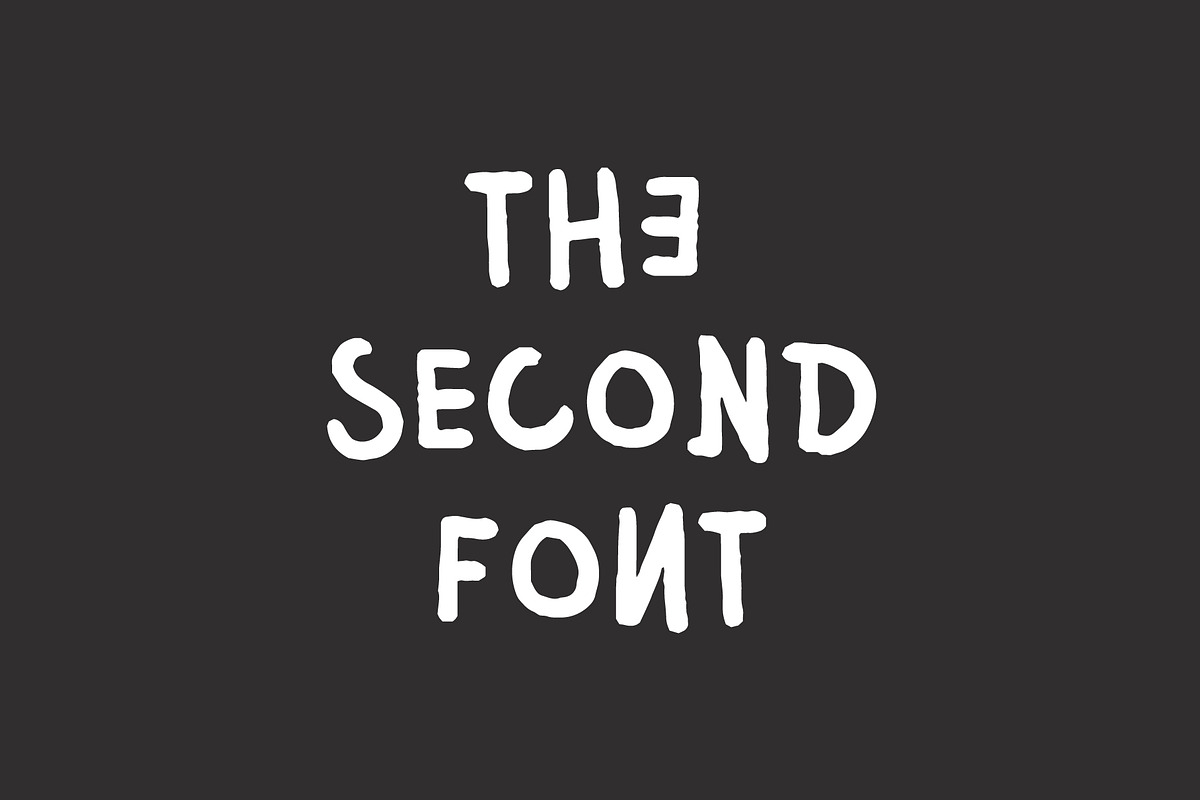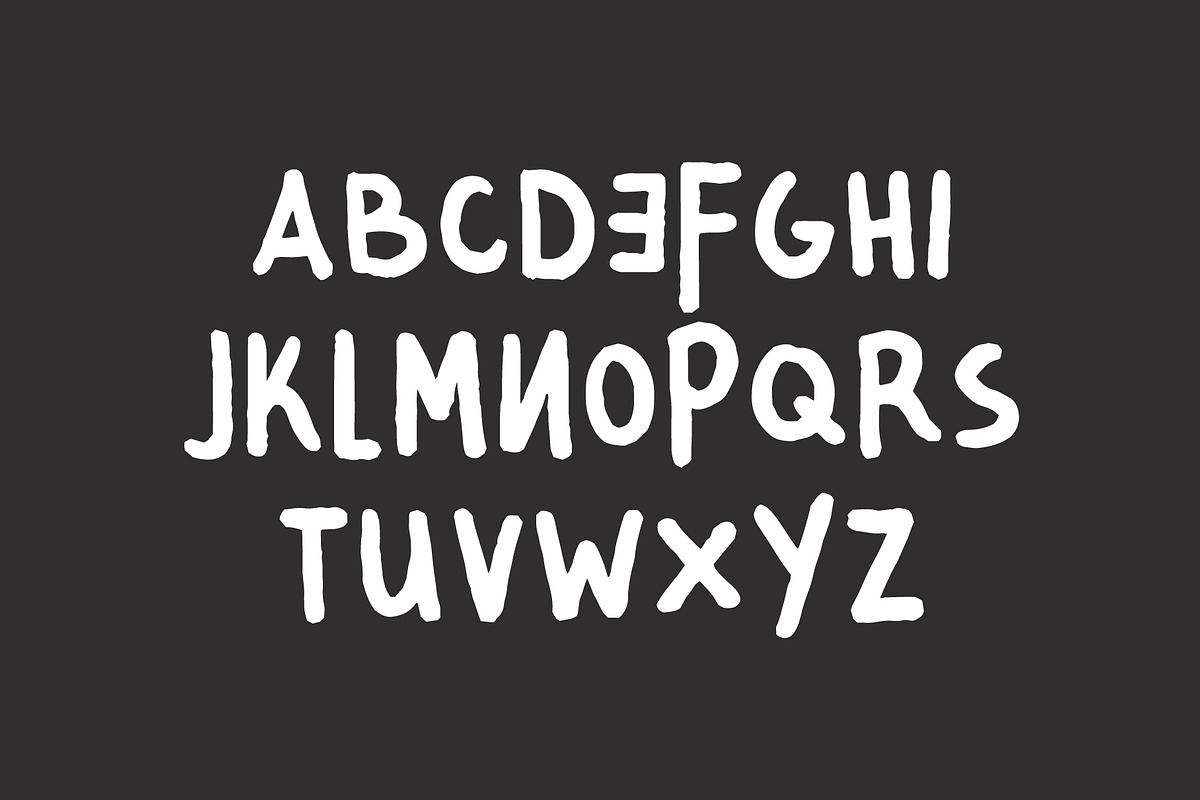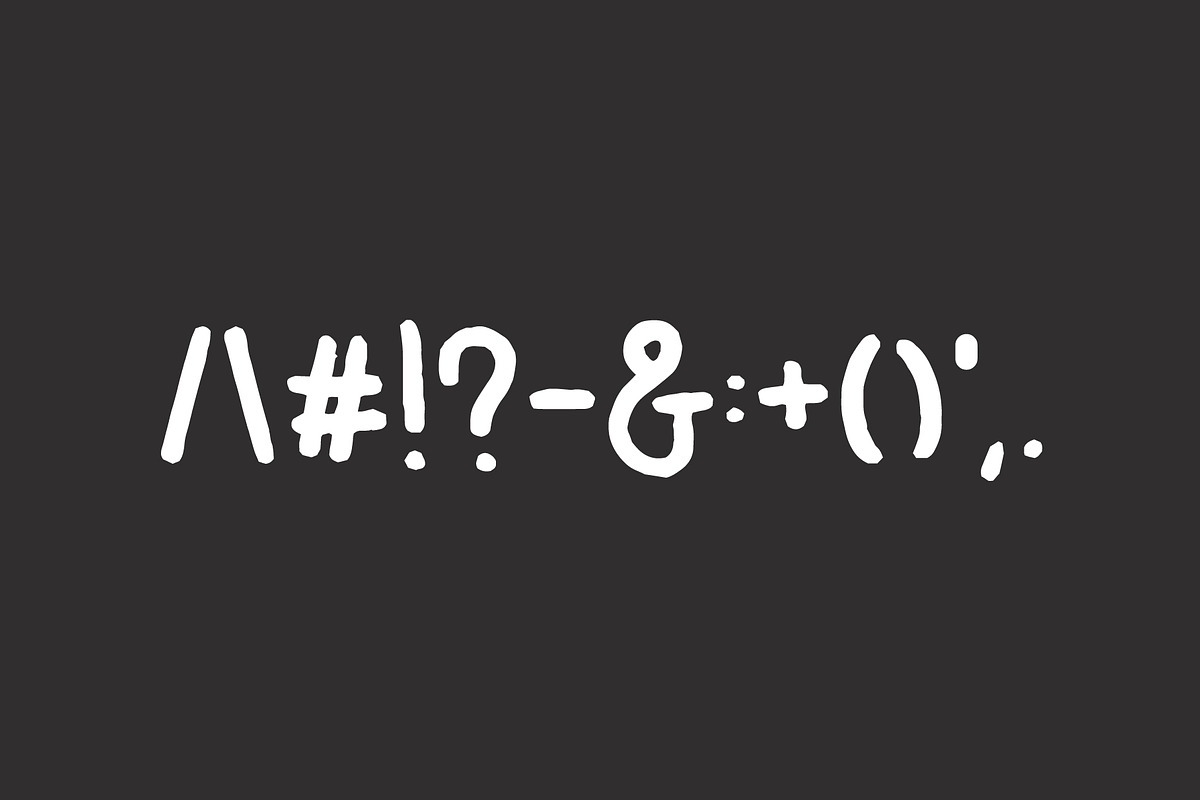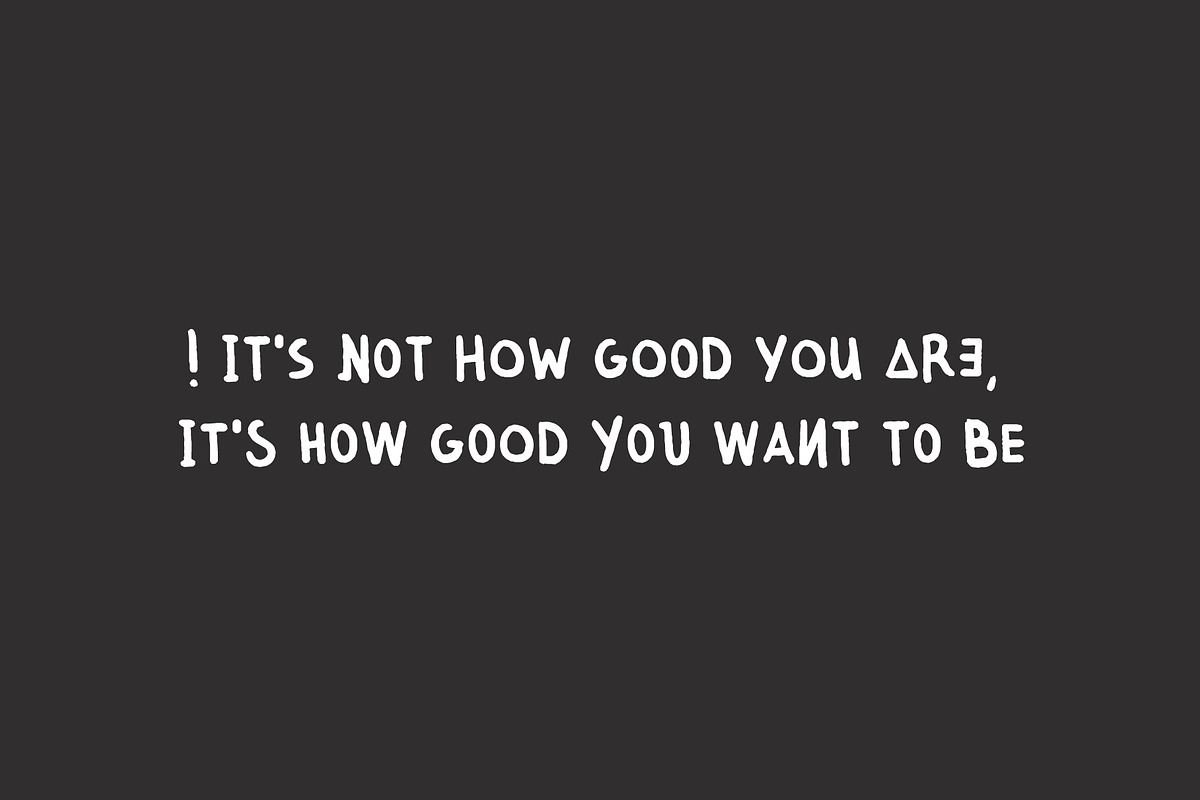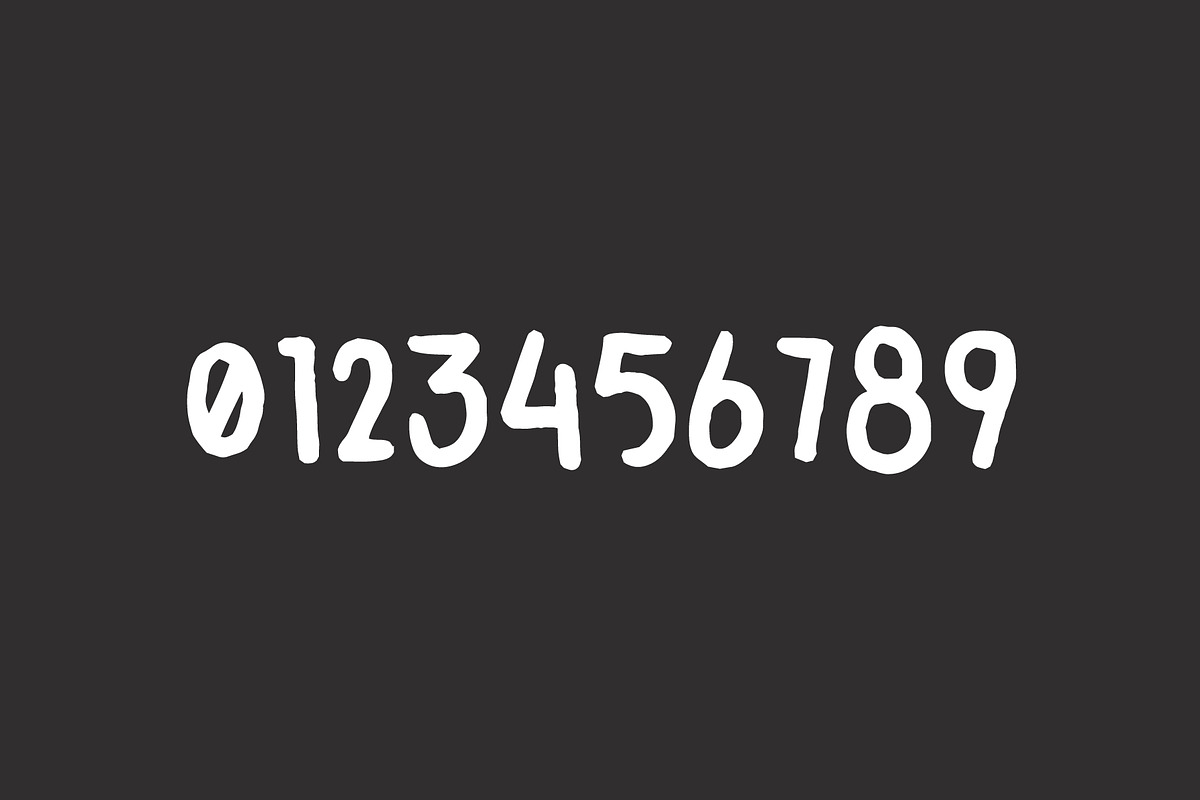
The Second Font
a font made by hand from sven pels
Why The Second Font is worth a look
The Second Font by Sven Pels fits naturally into Branding, posters, packaging, typography.